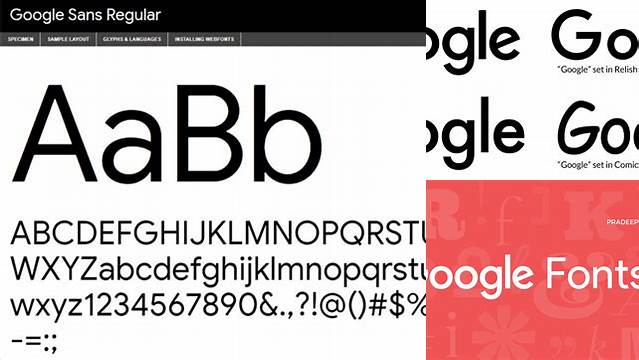
Hey guys! Ever wonder how some websites or apps just look super slick and modern? A lot of that magic often comes down to the typography they use. And if you’re on the hunt for a font that screams contemporary, professional, and incredibly versatile, then the Google Sans Flex font free download is probably on your radar. This font is a true game-changer for designers, developers, and really, anyone who cares about how their text looks. It's got that clean, minimalist Google vibe, but with an added layer of flexibility that makes it stand out from the crowd. So, buckle up, because we're about to dive deep into everything you need to know about getting your hands on this fantastic typeface, making sure you can put it to good use in all your creative endeavors. We'll cover everything from what it is, why you might want it, and crucially, how to get that Google Sans Flex font free download safely and effectively.
Understanding What Google Sans Flex Font Really Is
When we talk about the Google Sans Flex font, we're diving into a realm of modern typography that's designed for adaptability and aesthetic appeal. This font isn't just another pretty face; it's a testament to contemporary design principles, offering a clean, geometric sans-serif style that’s incredibly easy on the eyes. Google Sans Flex font draws heavily from Google's established visual language, taking cues from the iconic Product Sans (which you see in Google's logos) but making it more accessible and versatile for a broader range of applications. Think of it as a more refined, more flexible version of those familiar Google aesthetics, optimized for readability across various screen sizes and resolutions. What makes it particularly special is its variable font nature, meaning it can smoothly adjust along multiple axes like weight, width, and even optical size. This isn’t just about having bold or light versions; it’s about a continuous spectrum of styles, giving designers an unprecedented level of control and precision. This seamless variability ensures that text set in Google Sans Flex font looks perfectly balanced and legible, whether it's a tiny footnote on a mobile screen or a large heading on a billboard. Many folks often seek out a Google Sans Flex font free download because they've seen its polished look in action and want to replicate that sophisticated feel. It embodies Google's commitment to creating user-friendly, visually consistent experiences, providing a typeface that’s both functional and beautiful. Its subtle curves and well-proportioned characters contribute to a friendly yet authoritative tone, making it suitable for everything from corporate branding to personal blogs. The underlying design philosophy behind Google Sans Flex font focuses on clarity and efficiency, ensuring that every character contributes to an overall harmonious visual flow. So, when you're considering a Google Sans Flex font free download, you're not just getting a new typeface; you're gaining access to a highly engineered design tool that can truly elevate your projects.
Why You Need Google Sans Flex for Your Next Project
Looking for that special something to make your next project truly shine? The Google Sans Flex font might just be your secret weapon, and a Google Sans Flex font free download could be the first step towards design brilliance. Seriously, guys, this font brings a level of polish and professionalism that's hard to match. One of the biggest reasons to opt for Google Sans Flex font is its incredible versatility. Because it's a variable font, you're not limited to a few fixed weights like regular, bold, or italic. Instead, you get a fluid range of options, allowing you to fine-tune the thickness, width, and even the slant of your text with incredible precision. This means you can create a perfectly balanced visual hierarchy, ensuring that your headings pop, your body text is readable, and your captions are subtle, all while maintaining a consistent aesthetic. Imagine crafting a website where the font dynamically adjusts to the user's screen size, always looking pixel-perfect – that's the power of the Google Sans Flex font. Beyond its technical capabilities, its aesthetic appeal is undeniable. It's clean, modern, and has that signature Google clarity that people associate with innovation and quality. For branding, this means you can project an image of forward-thinking sophistication. For digital interfaces, it translates to intuitive readability and a pleasant user experience. No wonder so many designers are actively searching for a Google Sans Flex font free download to integrate into their toolkits. It’s also incredibly well-suited for both on-screen and print applications, meaning you don’t have to switch fonts when moving from a digital mock-up to a physical brochure. This consistency saves time and ensures your brand identity remains cohesive across all platforms. Moreover, using a font with such a strong lineage to Google's own design principles can lend a certain authority and trustworthiness to your work. It's not just a font; it's a statement about your commitment to modern, user-centric design. So, if you're looking to elevate your designs, improve readability, and give your projects a contemporary edge, seriously consider making a Google Sans Flex font free download your next move. You won't regret it.